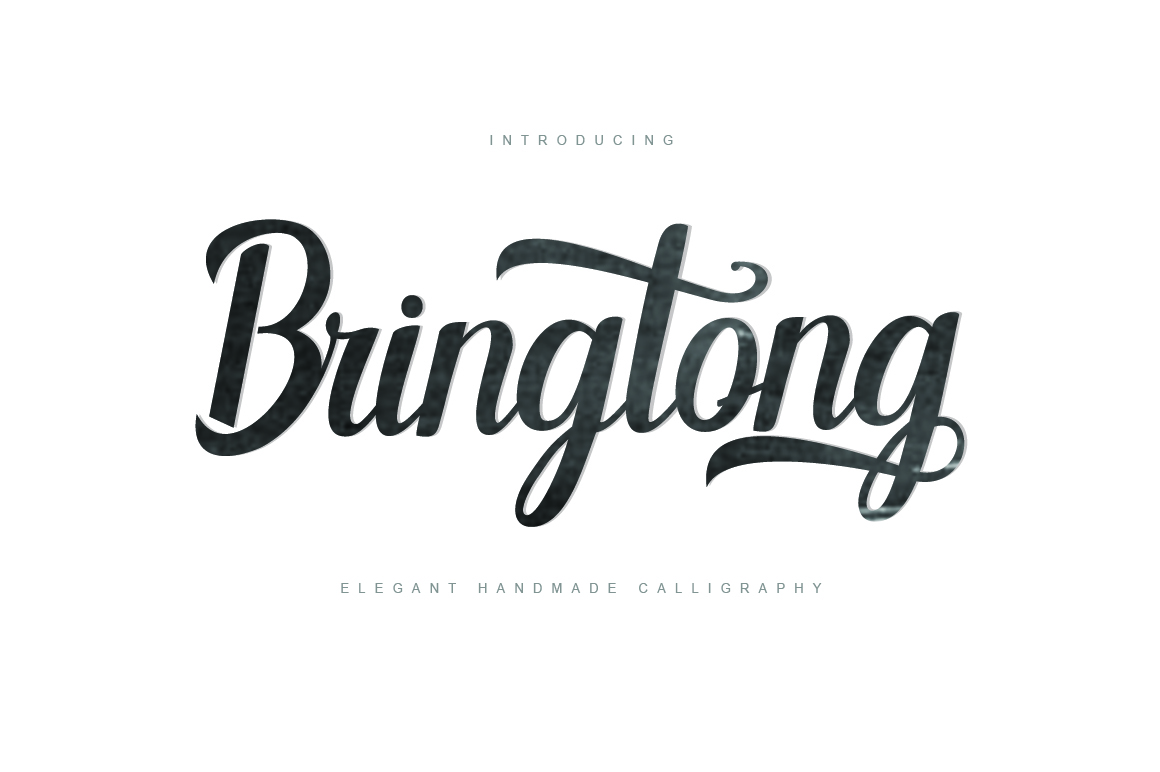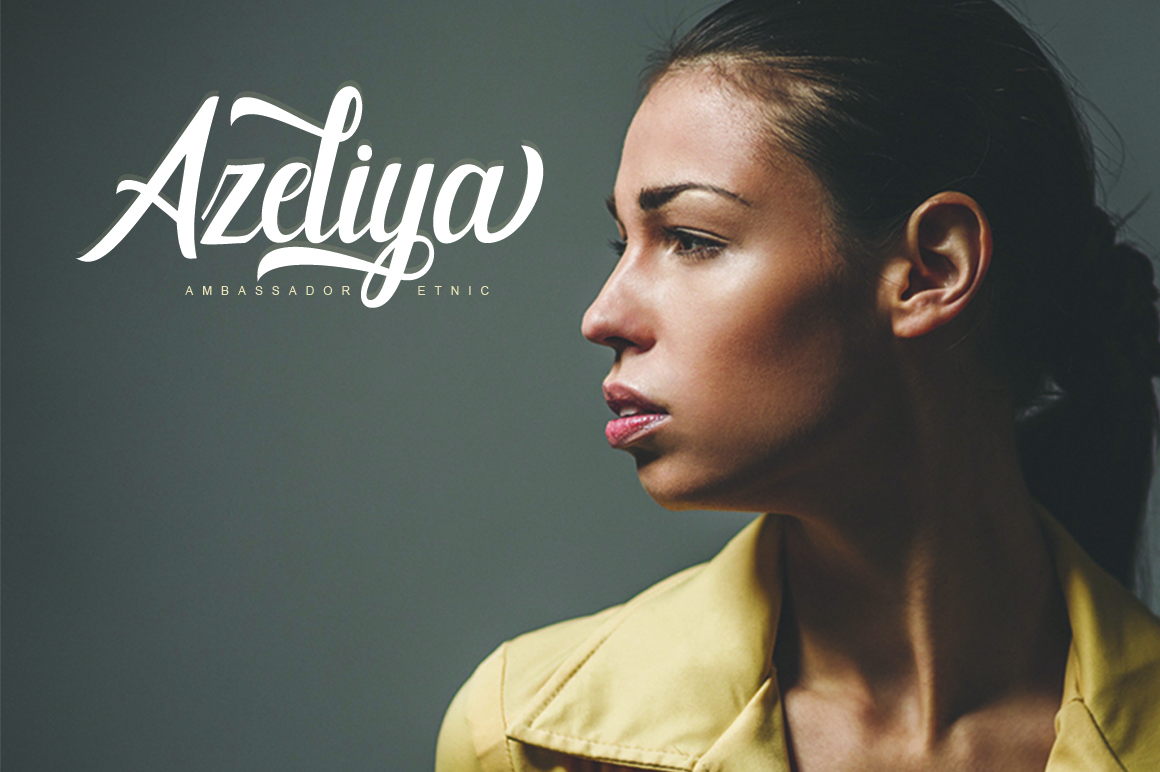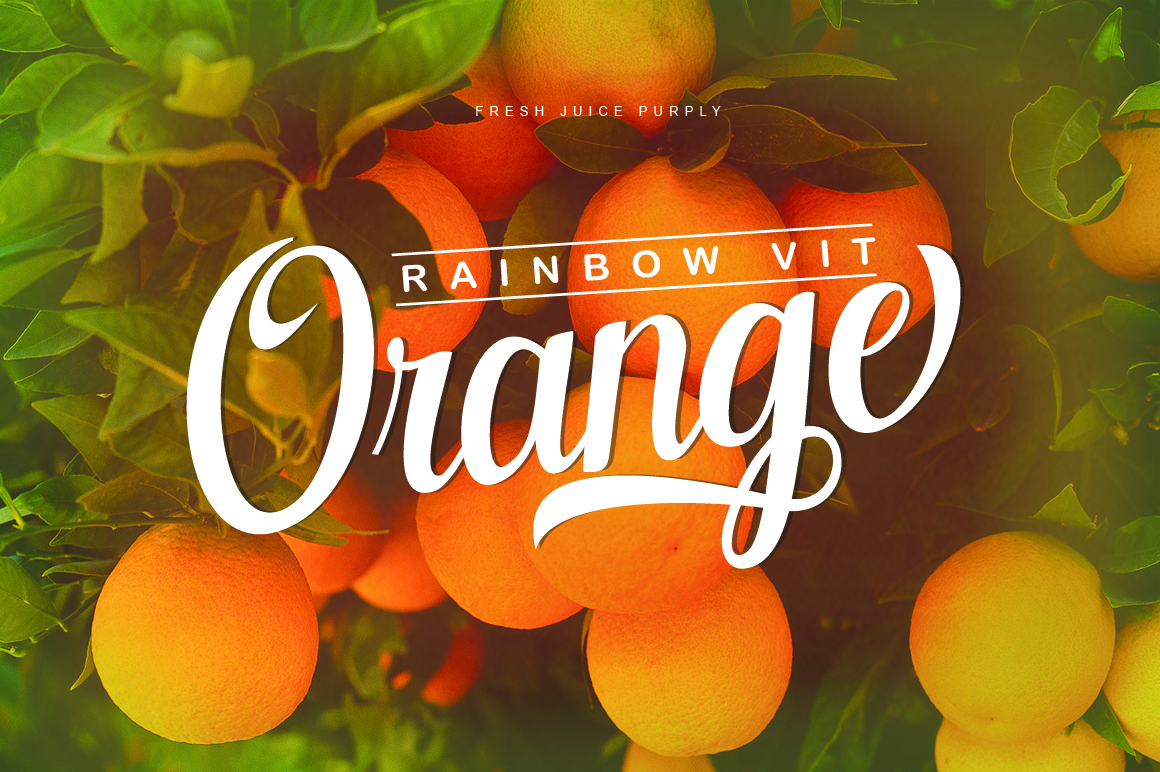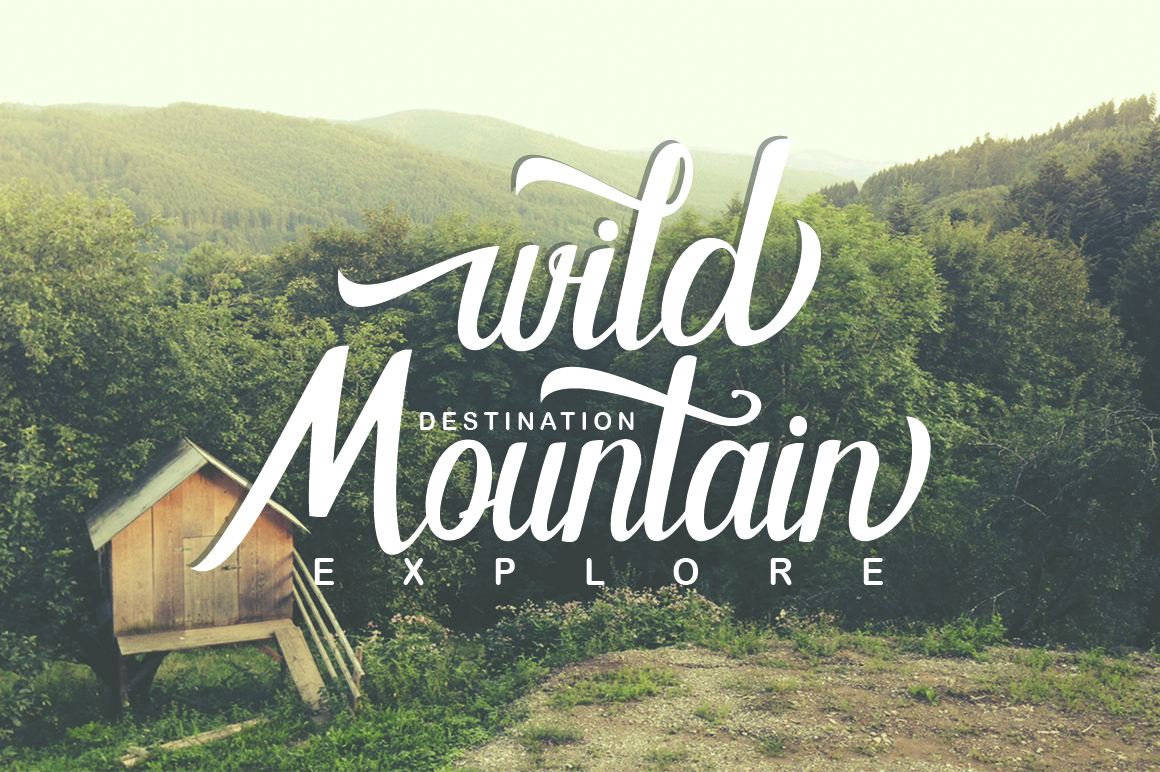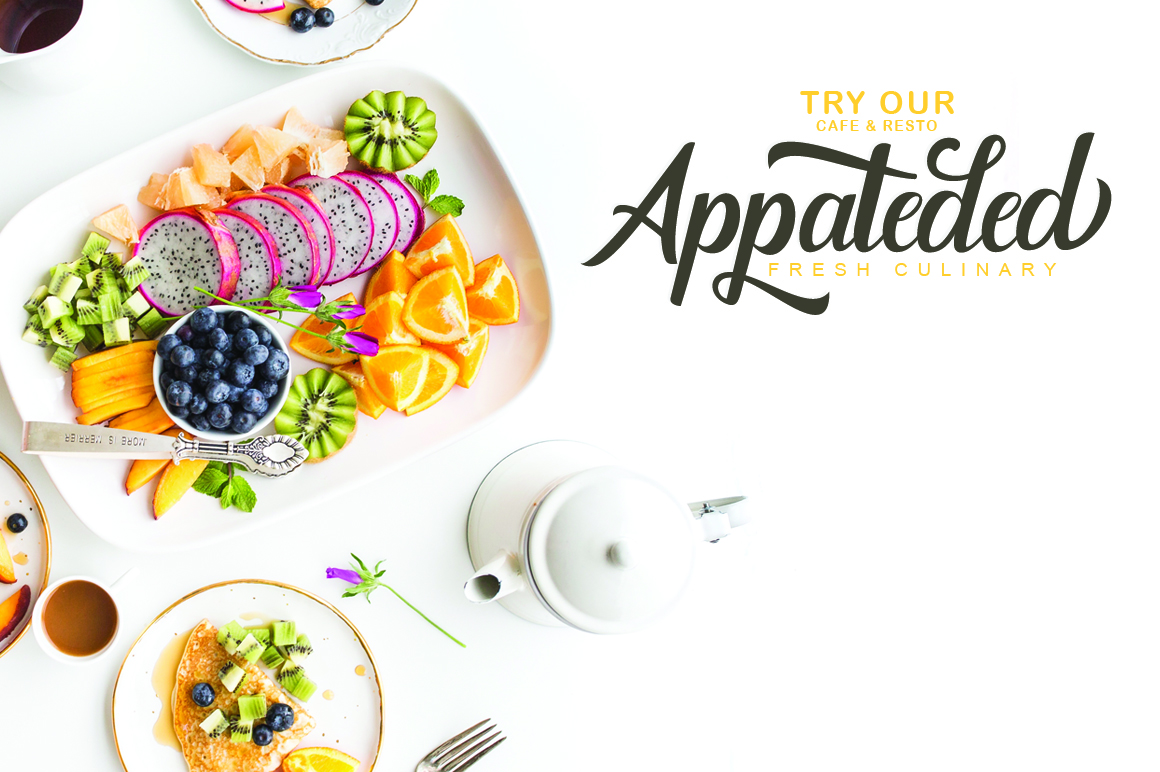
Bringtong Font
About Bringtong Font
Bringtong is a modern brush script that draws inspiration from Hot Rod lettering.
It’s a versatile script that can be used for many occasions. It includes 362 unique characters and features many swashes and other alternate characters.